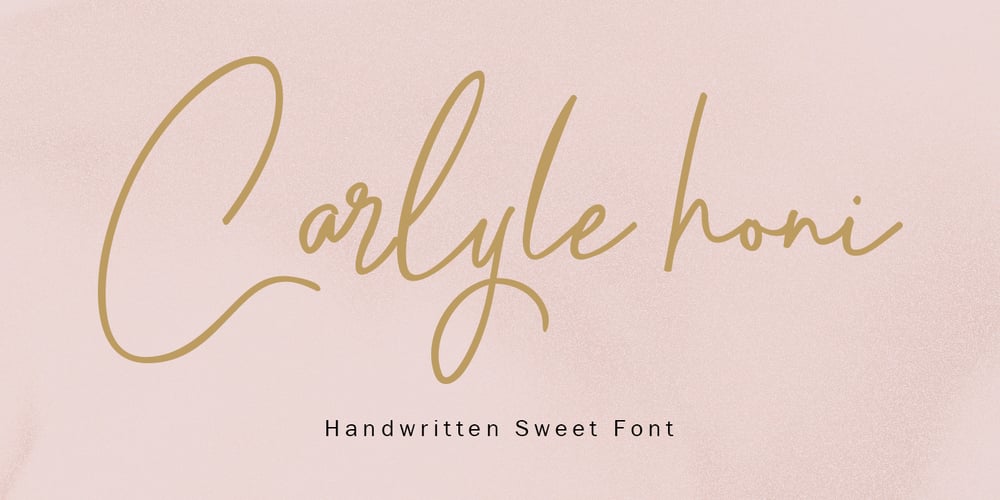
Carlyle Honi
Carlyle Honi font
Carlyle Honi Font Family was designed by Munawir and published by Mightype. Carlyle Honi contains 1 styles and family package options. Carlyle Honi Script is a modern calligraphy font with the current handwriting style, this font is perfect for branding, wedding invites, magazines, mugs, business cards, quotes, posters, and more, you can try first if you want to buy this font. Carlyle Honi Script is equipped with 475 glyphs and 83 ligatures. And by having many of these glyphs there will be able to choose the letters according to your likes, lots of variations and options for each letter, so you can customize on your design choices. To use a variety of flying machines, you need a program that supports OpenType features such as Adobe Photoshop Cs / Adobe Photoshop CC, Adobe Illustrator CS / Adobe Illustrator CC, Adobe Indesign and Corel Draw and many more programs that support OpenType. If you do not have a program that supports OpenType, you can access all the alternate glyphs using Font Book (Mac) or Character Map (Windows) If you have any question, do not hesitate to contact me by email mightype89@gmail.com Thanks and happy designing 🙂